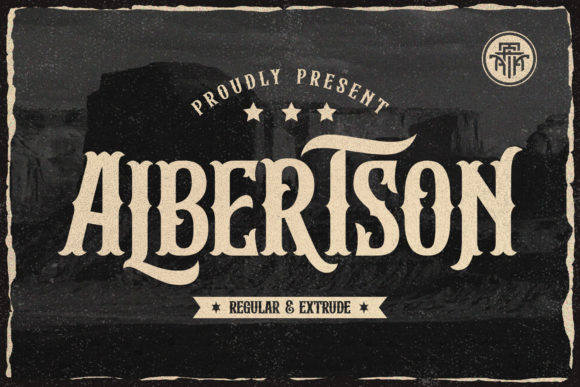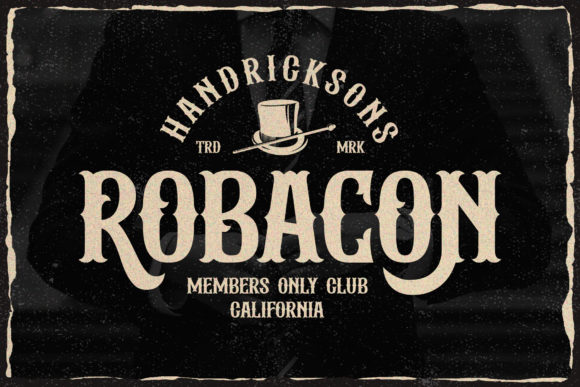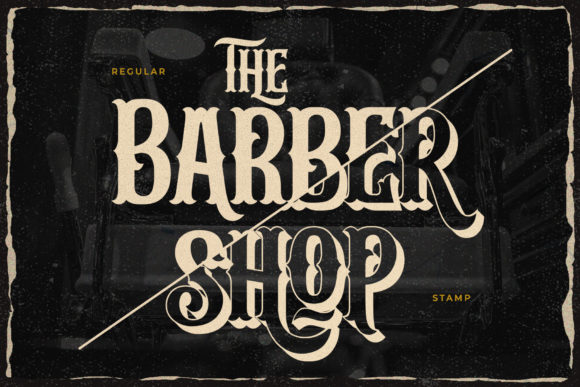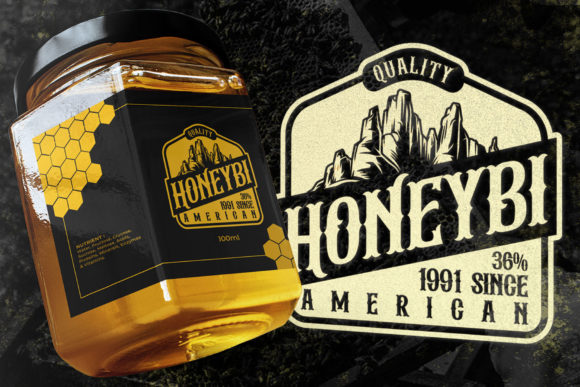
Albertson Font
About the Albertson Font
Welcome to the world of Albertson Font, a typeface that will inspire your next great project. Albertson is a strong retro blackletter font. This assertive font was created to enhance the beauty of your designs. It is PUA encoded which means you can access all of the glyphs and swashes with ease!
Albertson excels in headline applications, short impactful statements, and branding projects requiring a strong, vintage feel. Its assertive nature makes it ideal for posters, logos, and packaging design where it can command attention. However, its intricate details and bold weight make it unsuitable for body text or UI elements where readability is paramount. Avoid using it for large blocks of text.
Its retro blackletter style pairs well with clean sans-serif fonts like Montserrat or Open Sans for a balanced contrast. For a more vintage-inspired aesthetic, consider pairing it with a complementary serif like Playfair Display or Lora. These pairings provide readability in supporting text while retaining the overall visual strength of Albertson.
Albertson possesses a bold and assertive personality, conveying authority and a touch of vintage charm. It’s best suited for brands aiming for a retro yet confident image, such as craft breweries, vintage clothing stores, or businesses emphasizing heritage and tradition.
Albertson Font Example